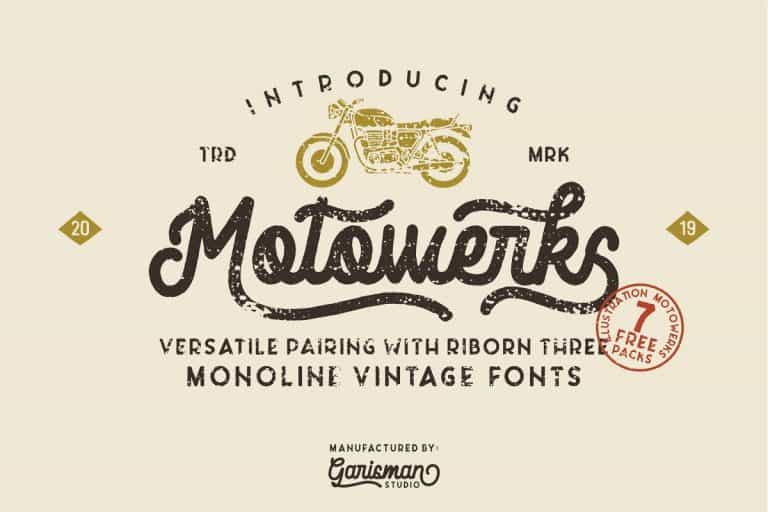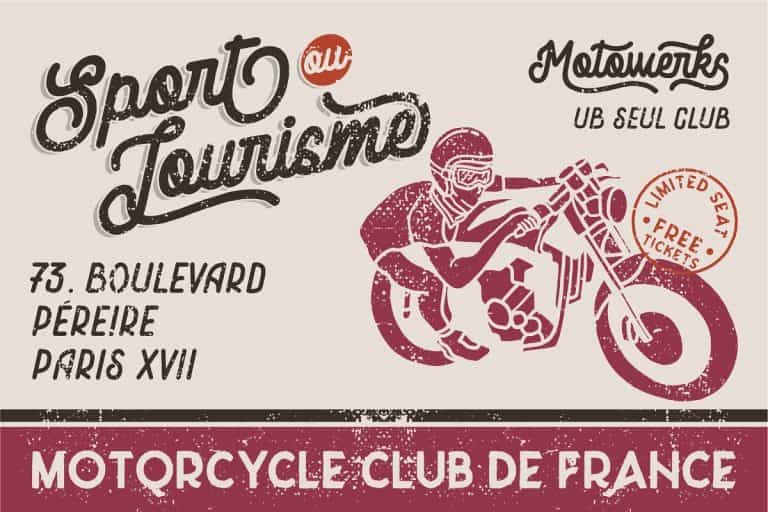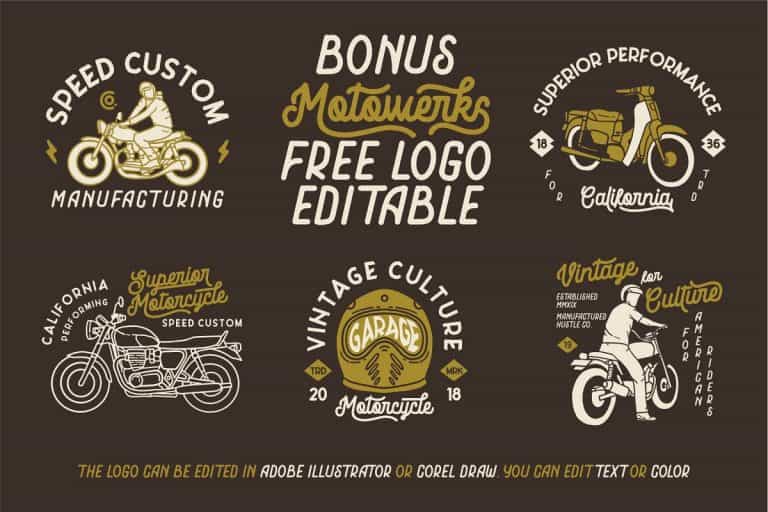
Introducing Motowerks Font. The Motowerks Vintage Script Font has been created from the vintage motorcycle style that is so inspiring. This fonts is a handmade modern vintage monoline display typefaces, available with different opentype style character and paired font RIBORN Three (Included FREE on this product).